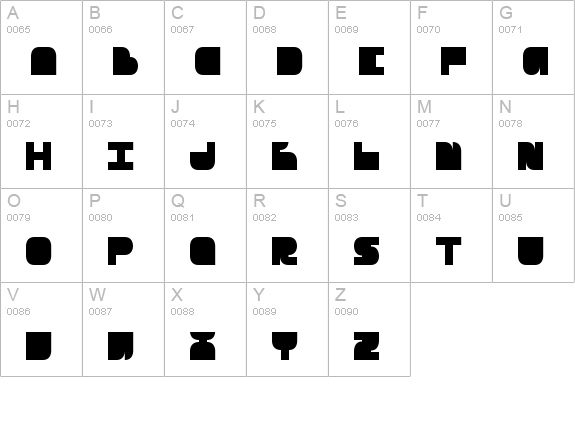
Breakbeat BTN Solid is a modern and dynamic font that exudes energy and creativity. With its bold and edgy appearance, this font is perfect for making a statement in any design project. Whether you are creating posters, banners, or album covers, Breakbeat BTN Solid will add a touch of excitement and style. The best part is that Breakbeat BTN Solid is completely free to download at FontsMarket.com. You can easily access this versatile font and use it in your personal or commercial projects without any cost. Embrace the power of Breakbeat BTN Solid to bring a fresh and contemporary look to your designs.